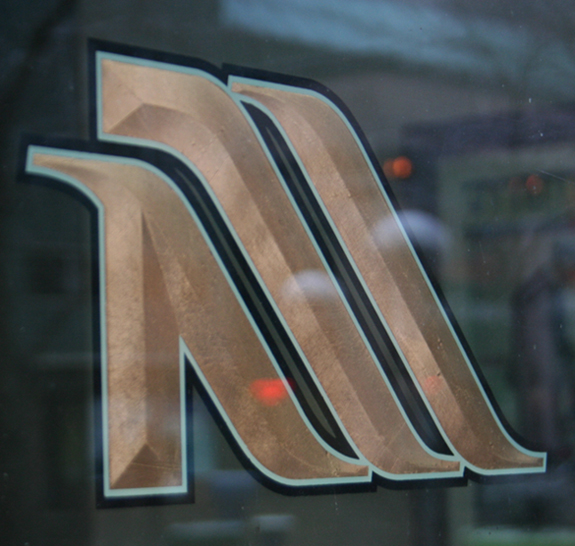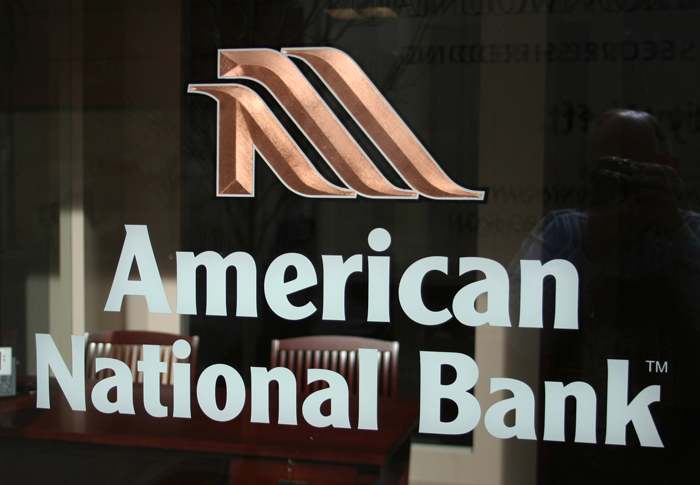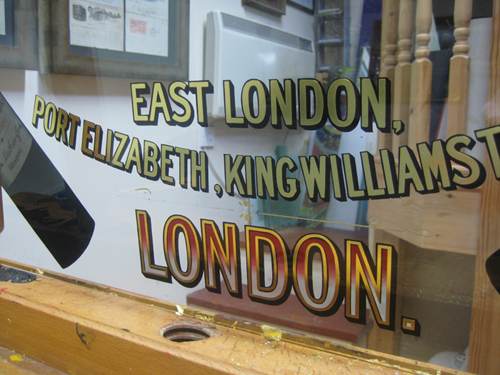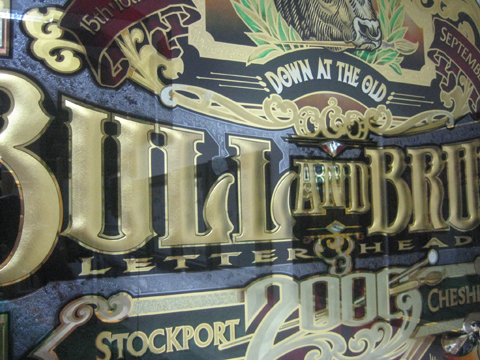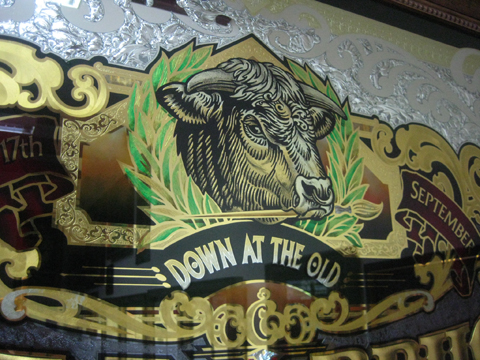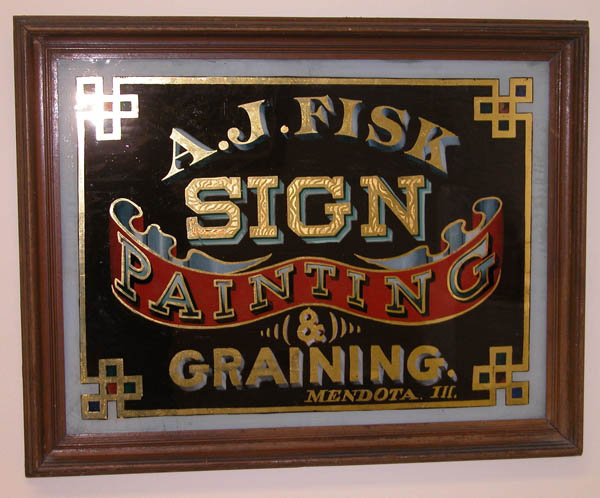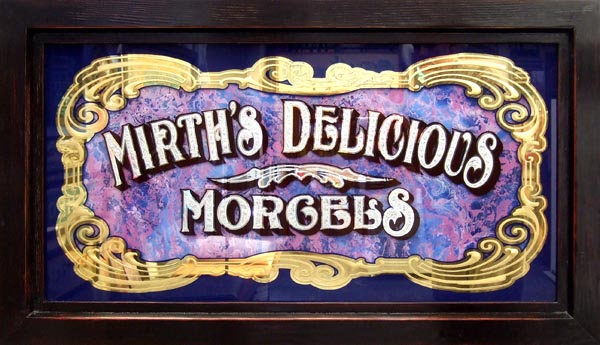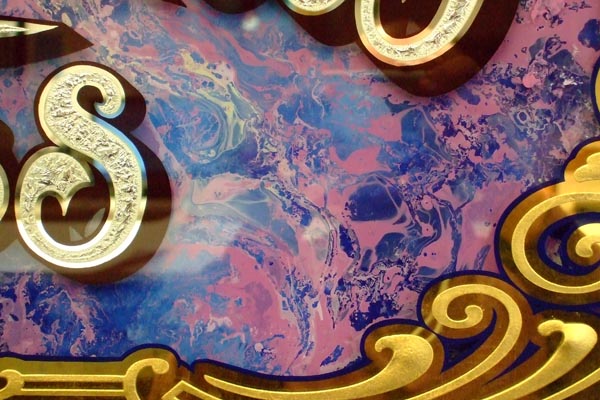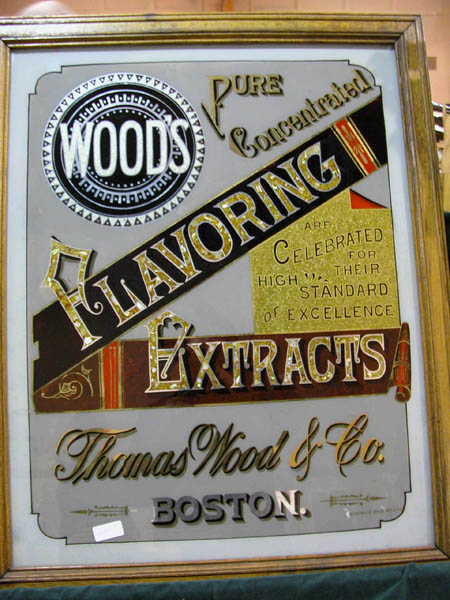
Man you got like an ocean of pearl on that thing! Now I know I'm at the end of the line.
That man there, I know him. He is a great gilder of glass signs.
I just finished this job today.
American National Bank wanted their copper logo on 7 windows. The logo is made up of prismatic copper letters.
I first saw this done in an article in SignCraft several years ago where you do surface gilding, cut acetate masks and burnish the gold different directions to catch the light and give a prismatic effect. I did the same thing in reverse on the glass with copper leaf. The cool thing is that as you move around and view it from different angles, it changes as the light hits it and you can swear the letters are dimensional, but it's just a flat gild on the inside of the glass.
American National Bank wanted their copper logo on 7 windows. The logo is made up of prismatic copper letters.
I first saw this done in an article in SignCraft several years ago where you do surface gilding, cut acetate masks and burnish the gold different directions to catch the light and give a prismatic effect. I did the same thing in reverse on the glass with copper leaf. The cool thing is that as you move around and view it from different angles, it changes as the light hits it and you can swear the letters are dimensional, but it's just a flat gild on the inside of the glass.
Very nice work Dan. Did you use the varnish technique or acetate way?
Great effect.
Some pieces I made a while back. the first one is a current job I am making at the moment a complete restoration i had one the same a year ago this is another panel which has to be copied exactly to it's original. All the bottles were carefully striped around the edges removing the old silver.one of those (knightmare jobs). the other panels are 14 and 9 years old.
Older panels made for Letterhead meets here 9 and 15 years ago
2000 letterheads Stockport. Blue lead Mirror silvering and angel gilding,23crt gold.
If you go to this forum you can see the whole process.
Very nice there Rod. The close-ups reveal very much more.
Nice chip too!
... you're blowing their minds over at the cutting edge Rod............good work of spreading the joy of what we all share.